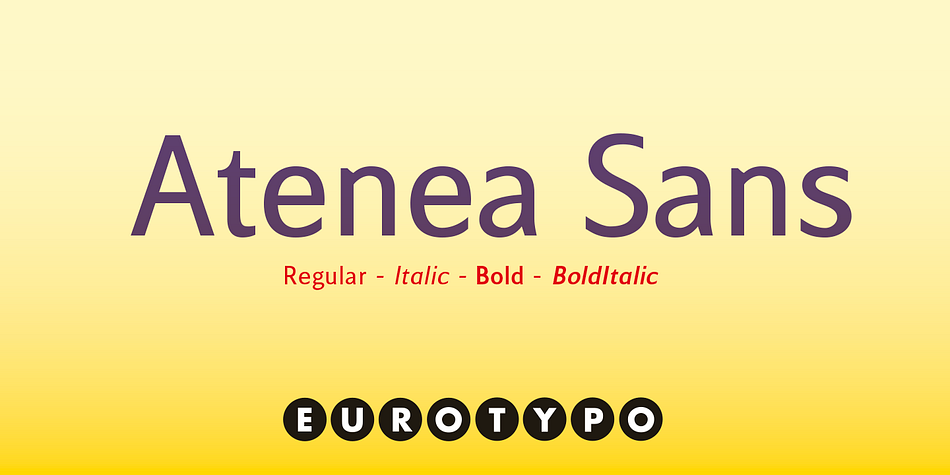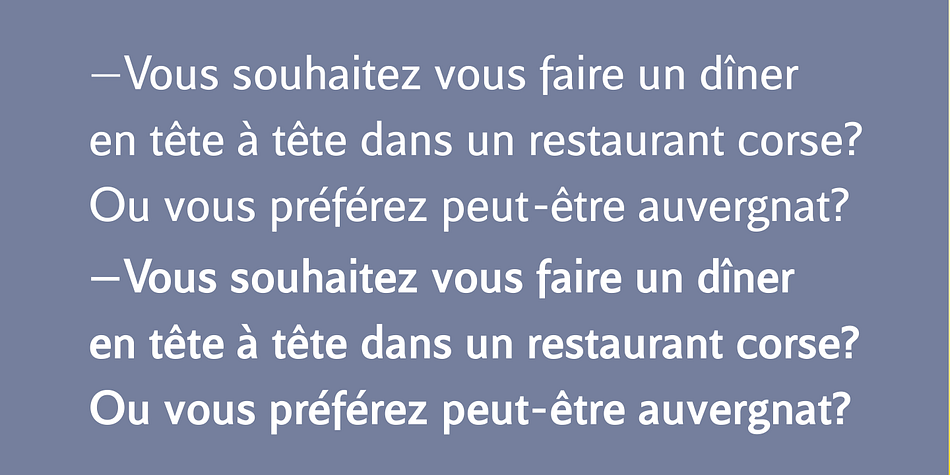
Atenea Sans
Designed by Olcar Alcaide, Atenea Sans is a sans serif font family. This typeface has four styles and was published by Eurotypo.
Atenea Sans is a sans serif, inspired by both grotesque and humanistic typeface references. A contemporary text family based on low contrast strokes and modular proportion with stylized rhythms.
Atenea Sans includes standards and discretional ligatures, small caps, fractions, old style and lining numbers, scientific superior/inferior figures.
Atenea Sans was created as an all-round type family, equally suitable for corporate communication and global publishing or marketing campaigns. To be used also in web pages, magazines, posters, signage and information systems.